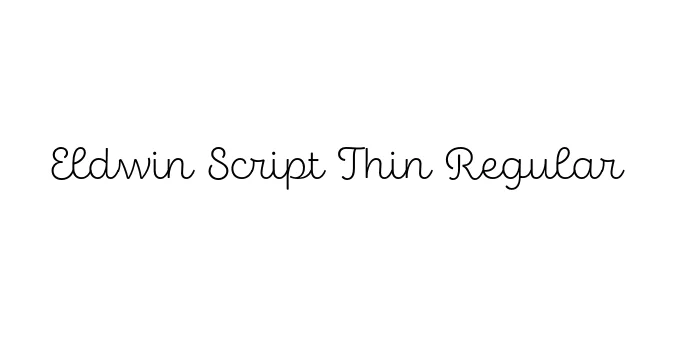
Eldwin Script Thin Regular
Designed by Kimmy Kirkwood
Eldwin Script Thin Regular is a charming, hand-drawn typeface family designed by Kimmy Kirkwood under the Kimmy Design foundry. It captures a friendly, approachable aesthetic with its flowing script and unique character forms, designed to bring a warm, human touch to digital and print layouts. The Thin weight specifically offers a delicate and elegant feel, making it highly suitable for high-end modern branding, minimalist invitations, and sophisticated editorial work.
The font family draws inspiration from traditional hand-lettering and classic signage styles while maintaining a distinctly contemporary edge. It features a robust set of alternates and ligatures that allow for a custom, hand-crafted appearance, ensuring that text does not appear repetitive. Its versatility across multiple weights, from this delicate Thin to a bold Black, makes Eldwin a comprehensive tool for diverse creative projects ranging from boutique packaging to social media content.
Eldwin Script Thin Regular Best Uses
Perfect for invitations and place cards needing a delicate, sophisticated touch.
Ideal for logos and brand identities that require a personal, hand-lettered aesthetic.
Great for creating aesthetic quotes and high-end visual content for Instagram or Pinterest.
Adds a sophisticated flair to artisanal products and luxury retail labels.